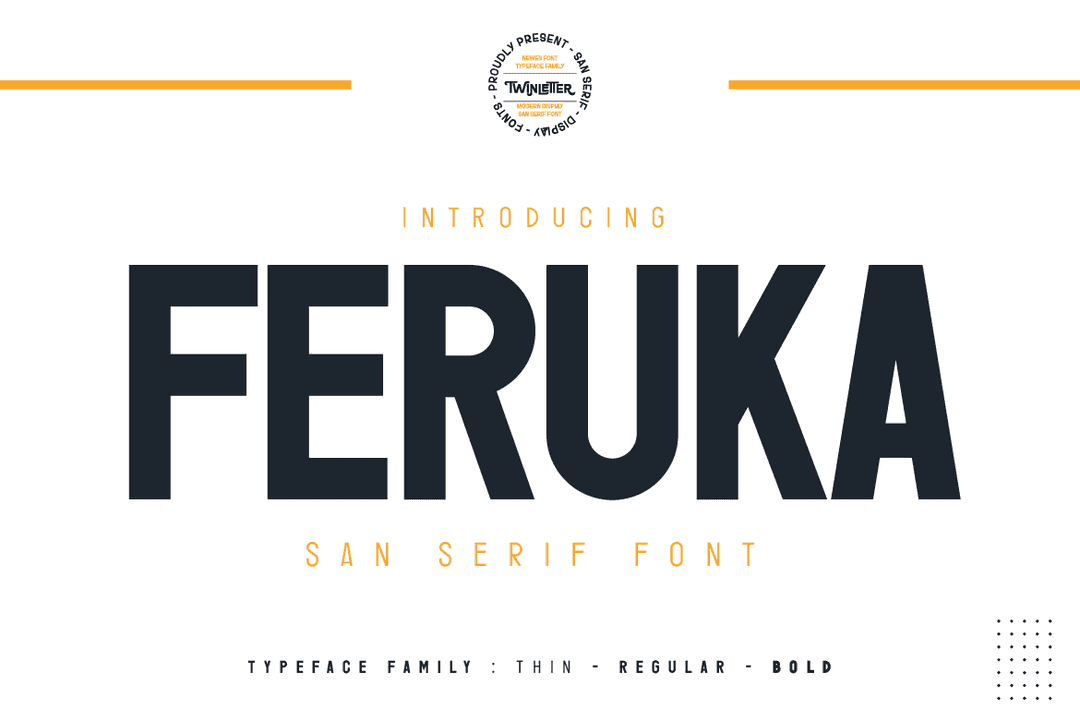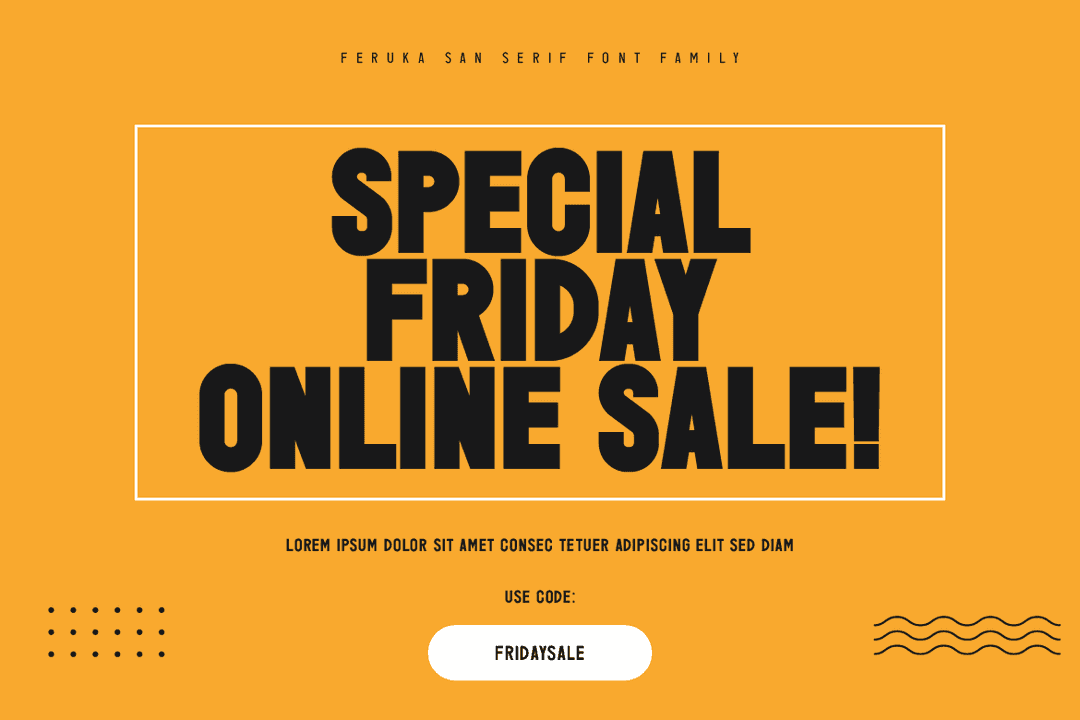
Discover Feruka Font, part of the Sans Serif collection—a versatile and unique font perfect for adding a personal touch to your projects. Download it for free and enjoy crafting designs with style, from invitations to social media posts. This font is available exclusively for personal use, giving you the freedom to create without limits. Unlock your creativity with Feruka Font today!
Feruka is an eye-catching sans-serif lettered font, perfect for web design and business cards; but also great for any project that calls for something unique in terms of design.